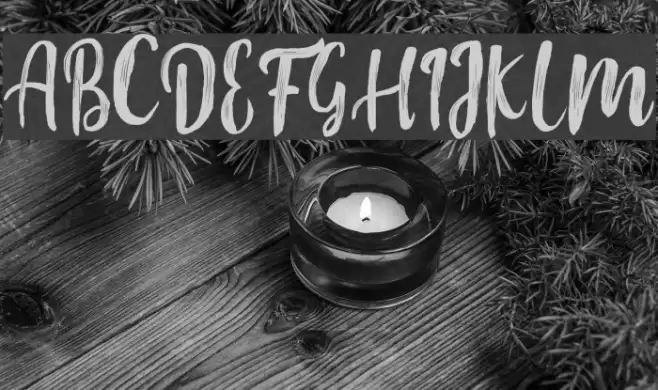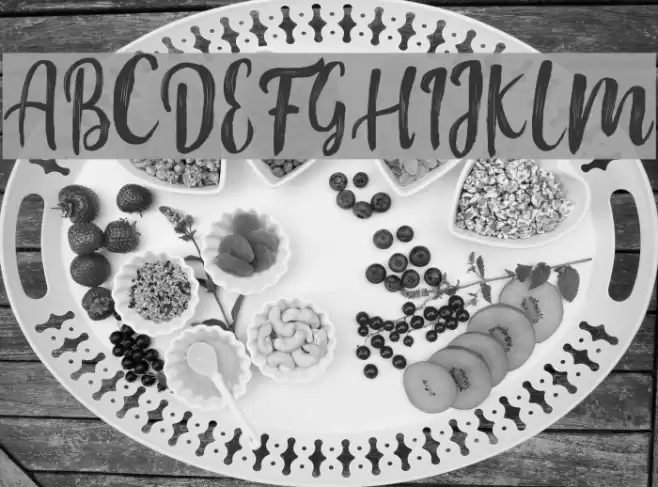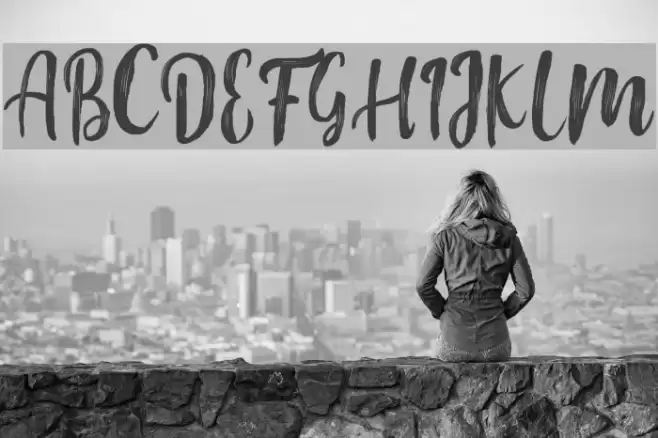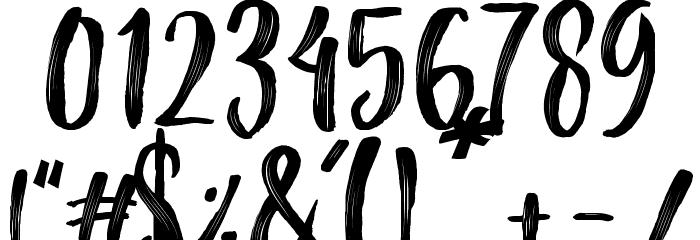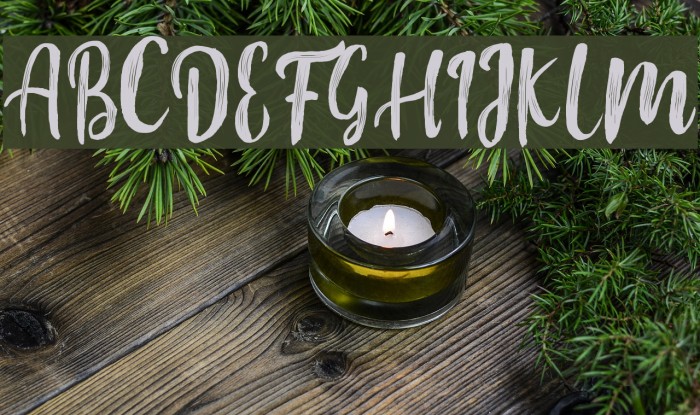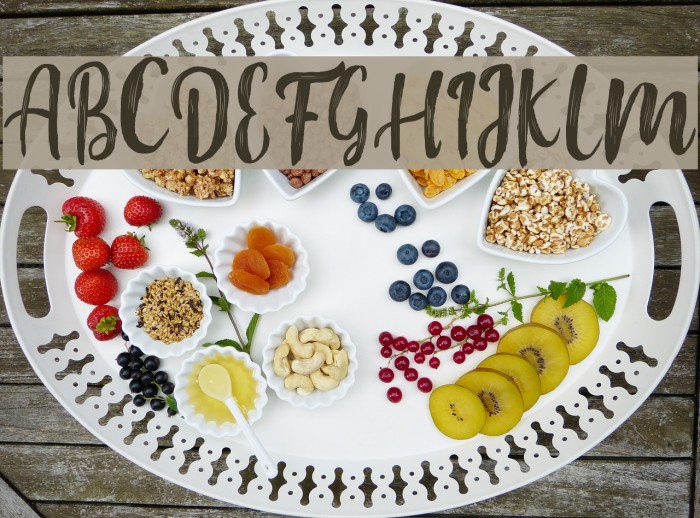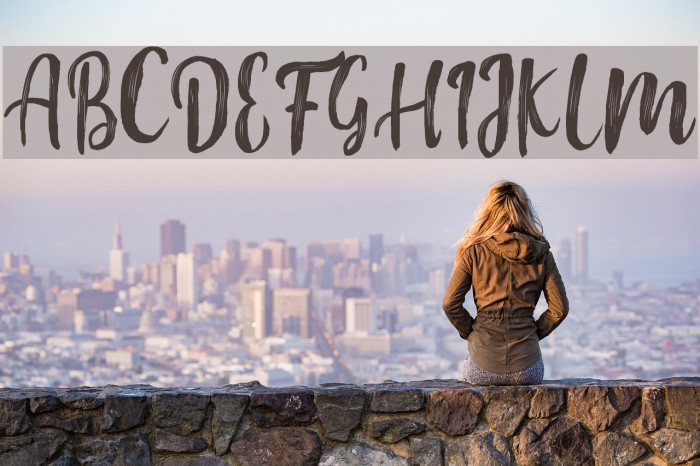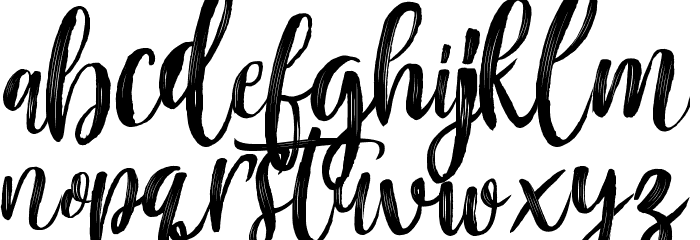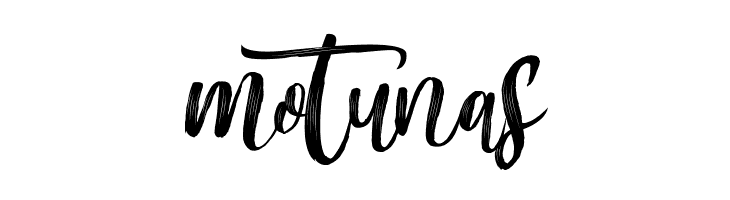
Mountain Script Font
Mountain Script Description
This font features a bold, expressive script style with a hand-drawn appearance. The letters are characterized by their fluid, sweeping strokes and varying thickness, giving it a dynamic and energetic feel. The uppercase and lowercase letters maintain a consistent style, with some letters featuring unique flourishes and loops. The numbers and special characters are designed to match the overall aesthetic, making it suitable for creative and artistic projects. The font's playful and informal nature makes it ideal for designs that require a personal touch.
A bold, expressive script font with a hand-drawn, dynamic style from Uncategorized fonts.
- Proposed Projects: Ideal for greeting cards, invitations, branding, and social media graphics.
- Use Case: Logos, Headlines, Invitations